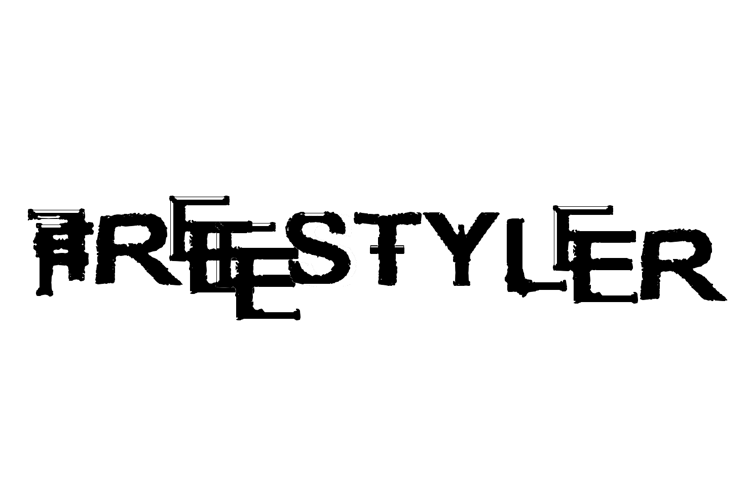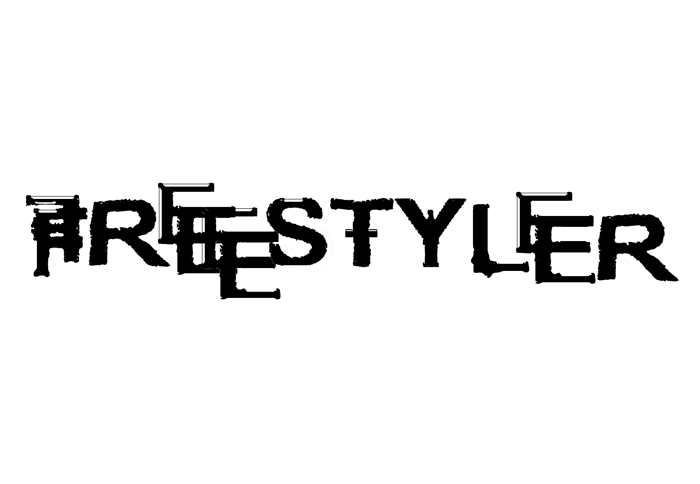
freestyler ancient f6 Font
This is FREESTYLER (Ancient family6) font (modified)
F and T are from family 8 (hence "modified")
This is a demo font and does not contain any numbers or special symbols as family 6 of FREESTYLE font family contains only capital letters
F and T from family 8 were included to make it appear more original than original F and T from family 6